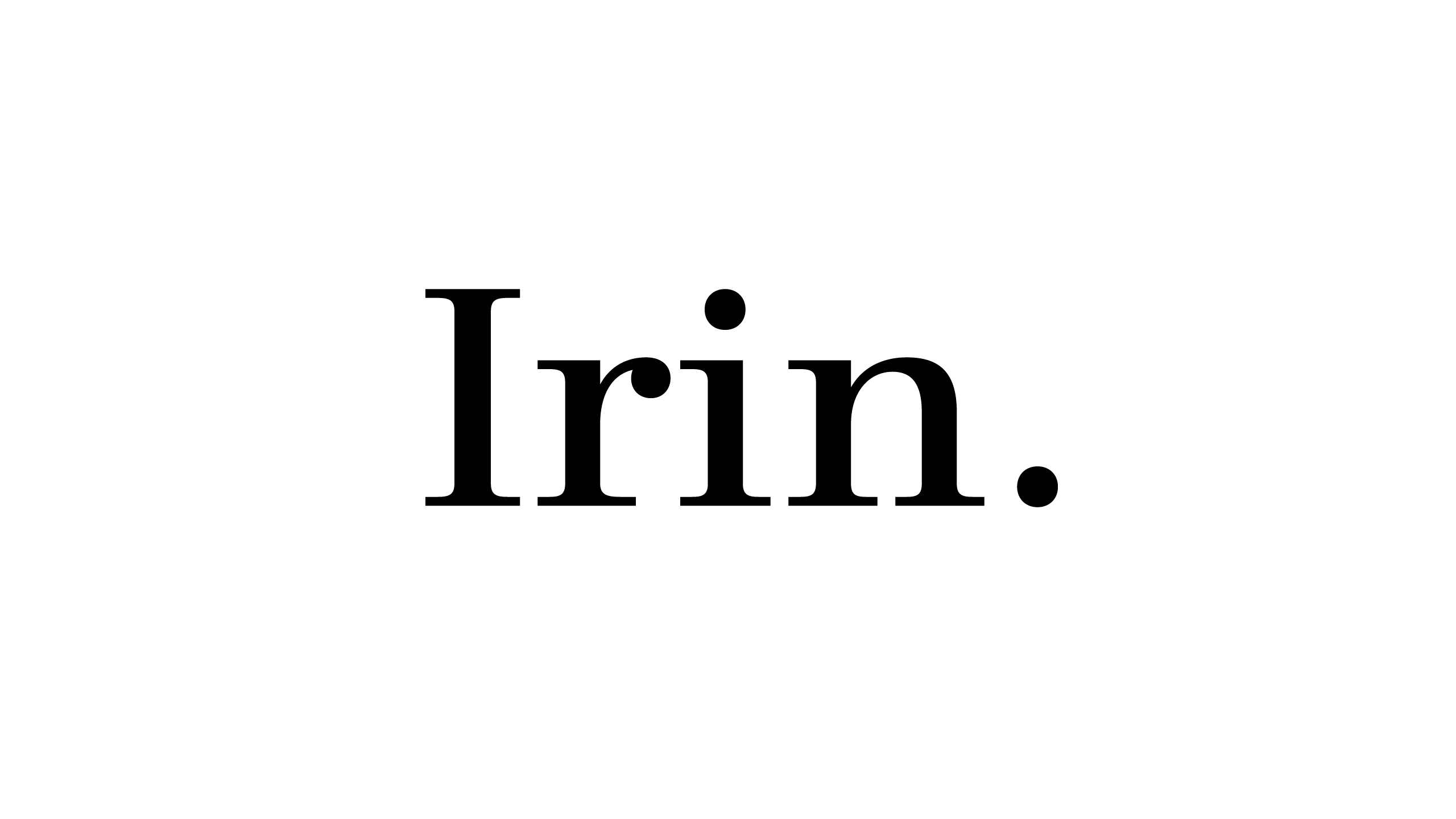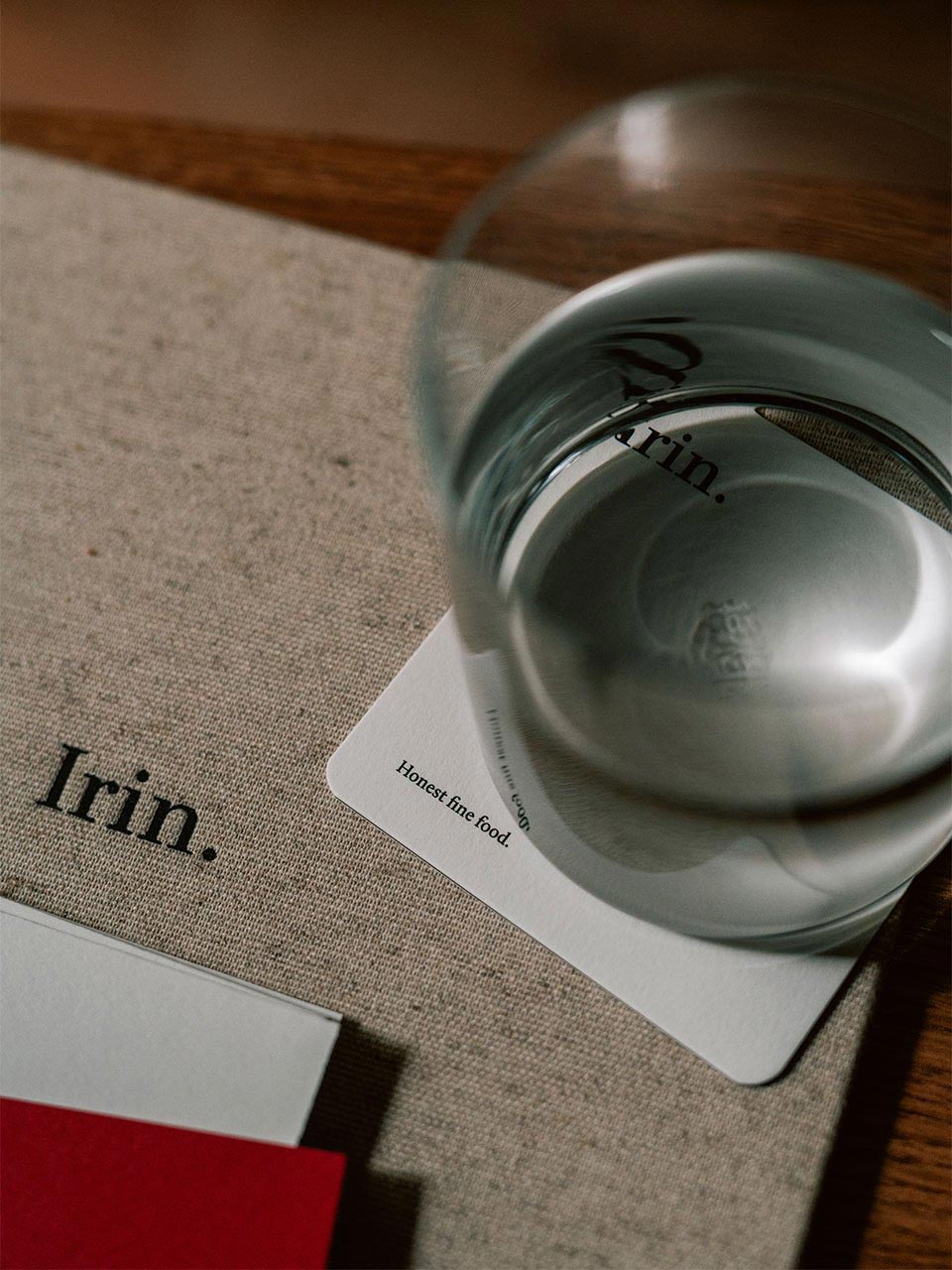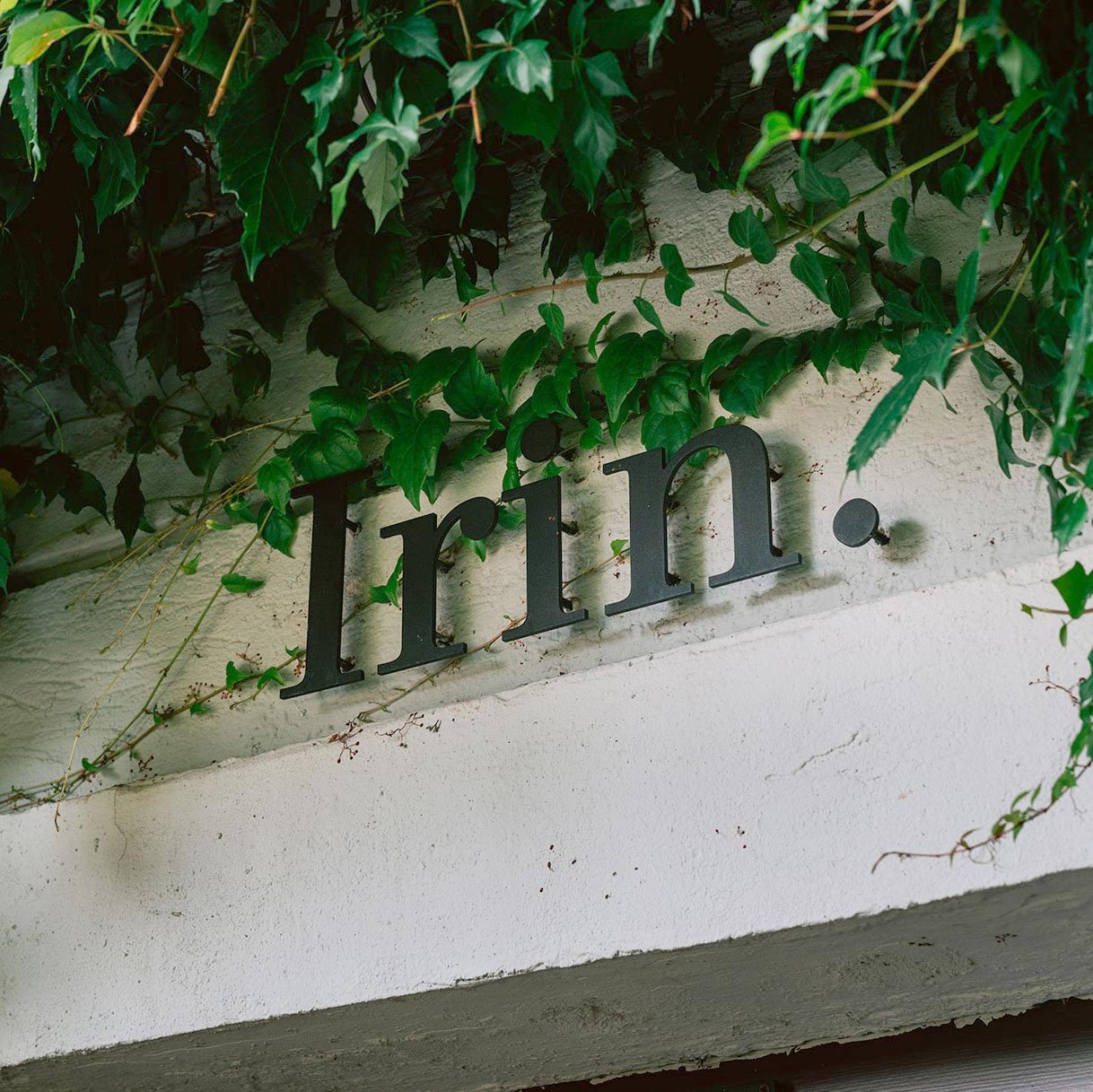
Irin
Logo for Irin restaurant in Bratislava, Slovakia. The wordmark with soft bracketed serifs and a multiple dot elements is used in a minimalist, elegant visual identity inspired by the architecture of the restaurant space.